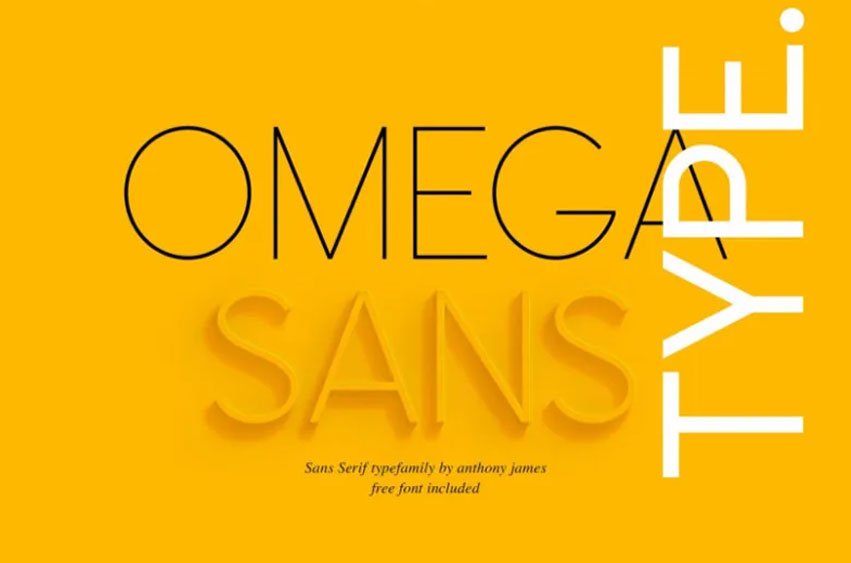
Omega Sans Font
Omega Sans Font  is a modern Sans Serif with 4 Weights. With its proportioned pair of lighter weights, Omega makes an elegantly balanced typeface for headlines and all displays! This dgsign is brought to you by Anthony James.